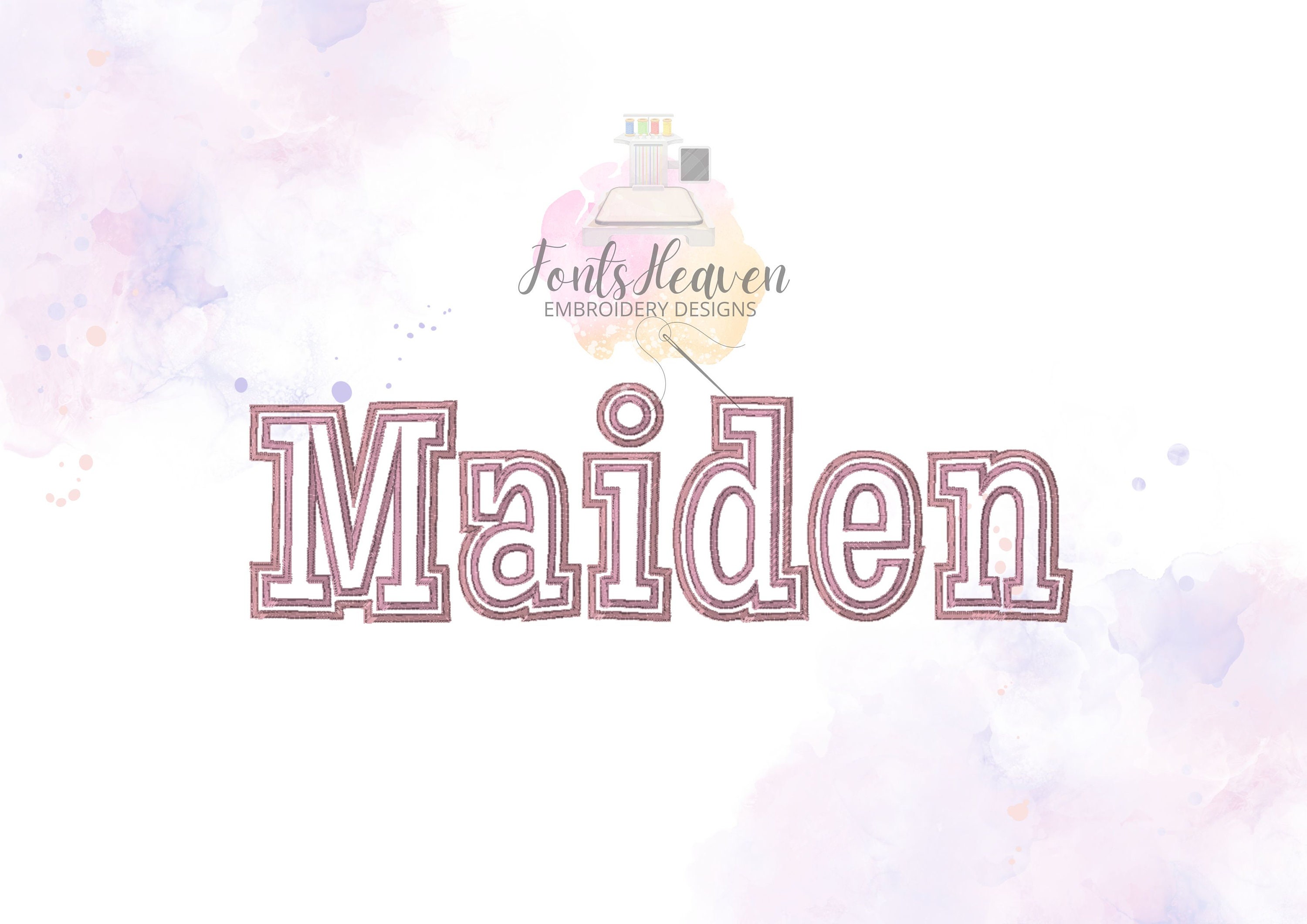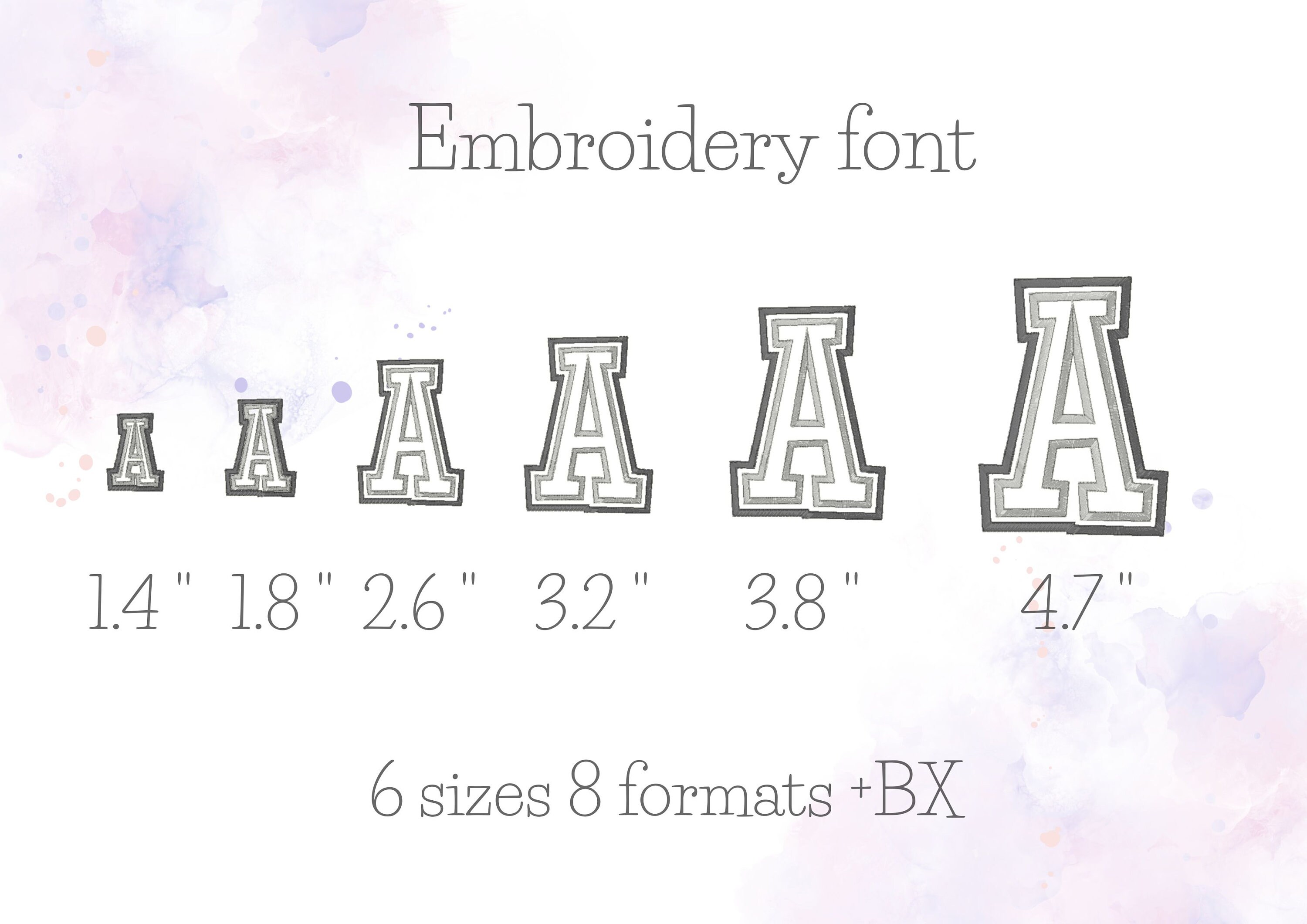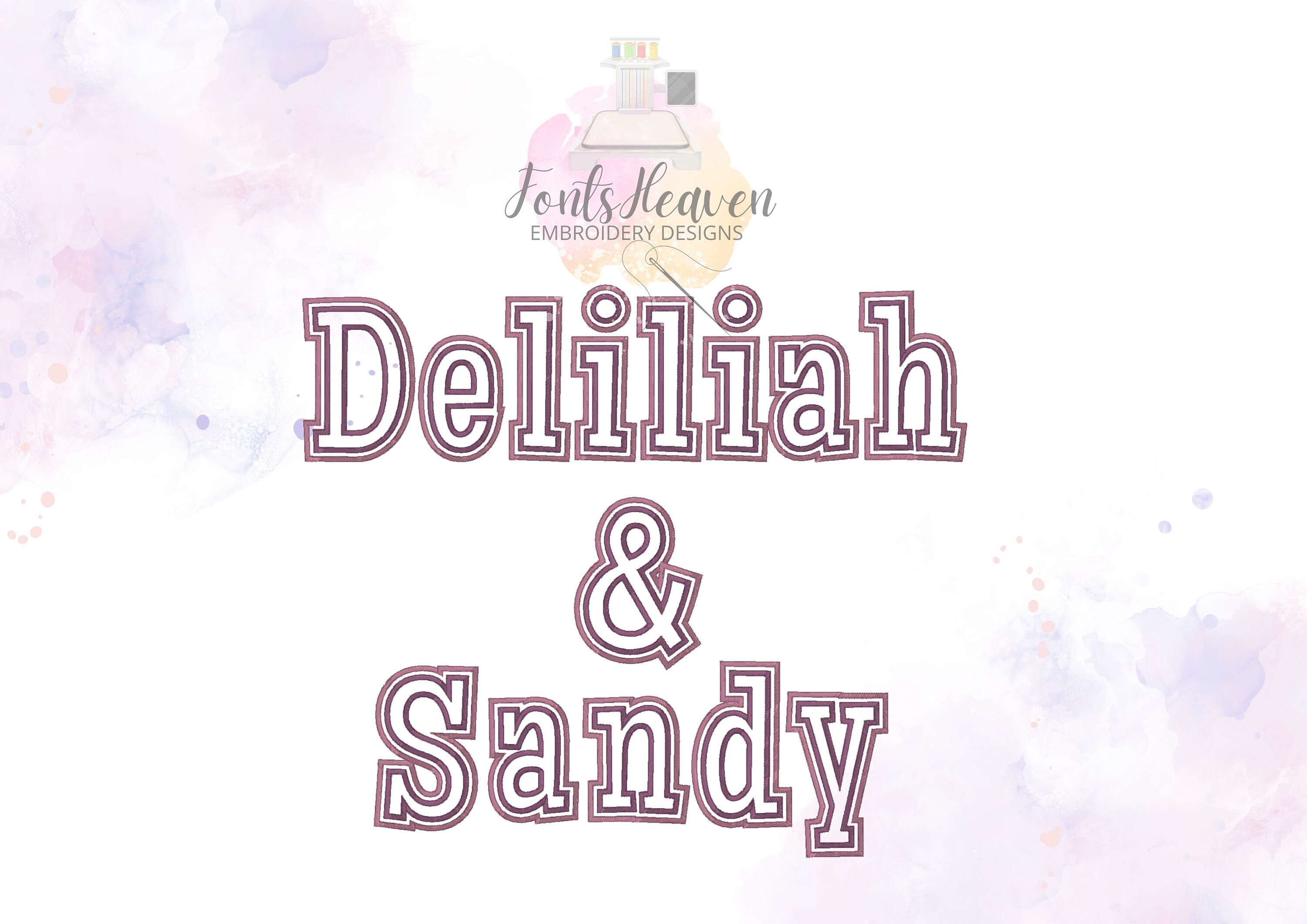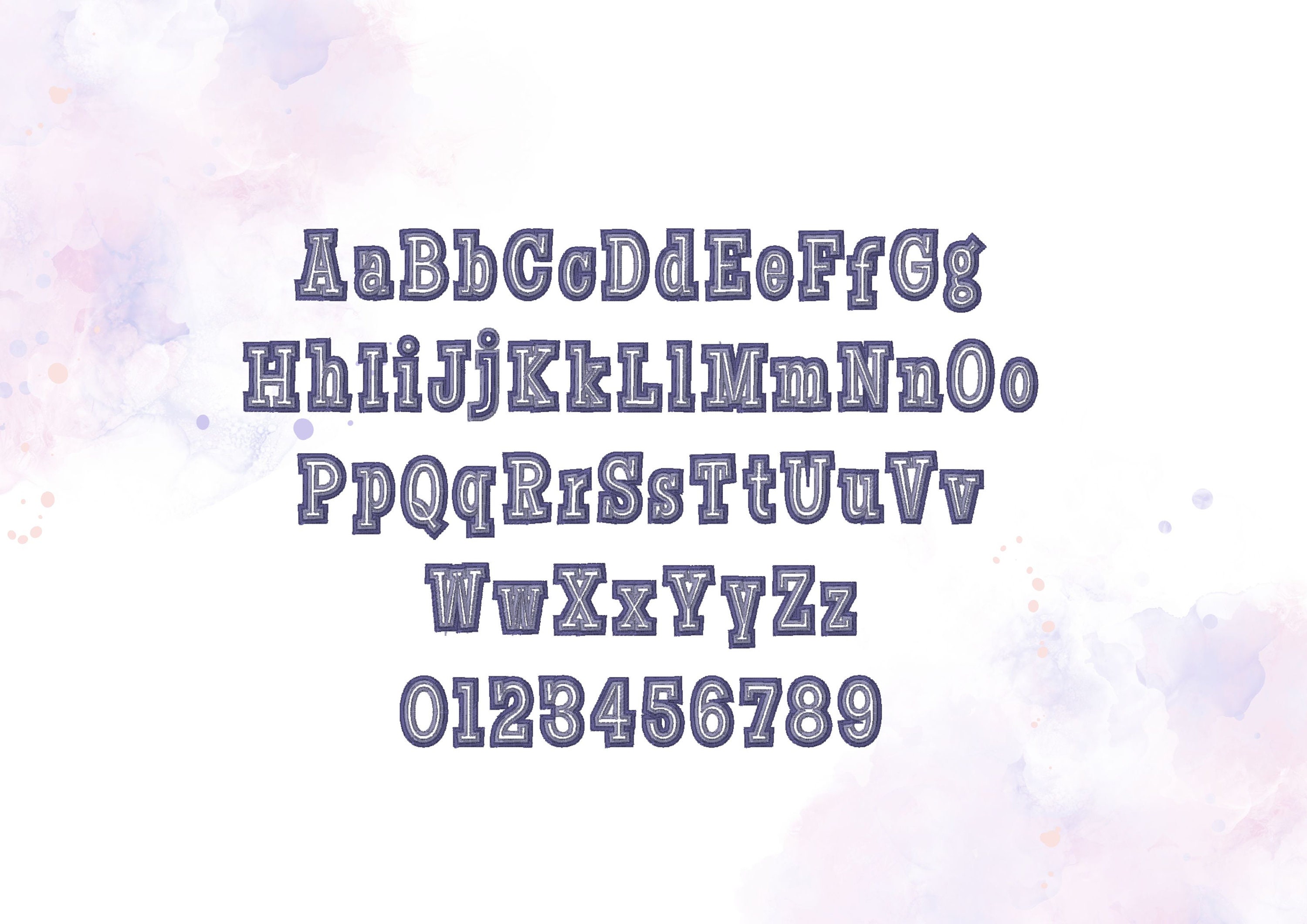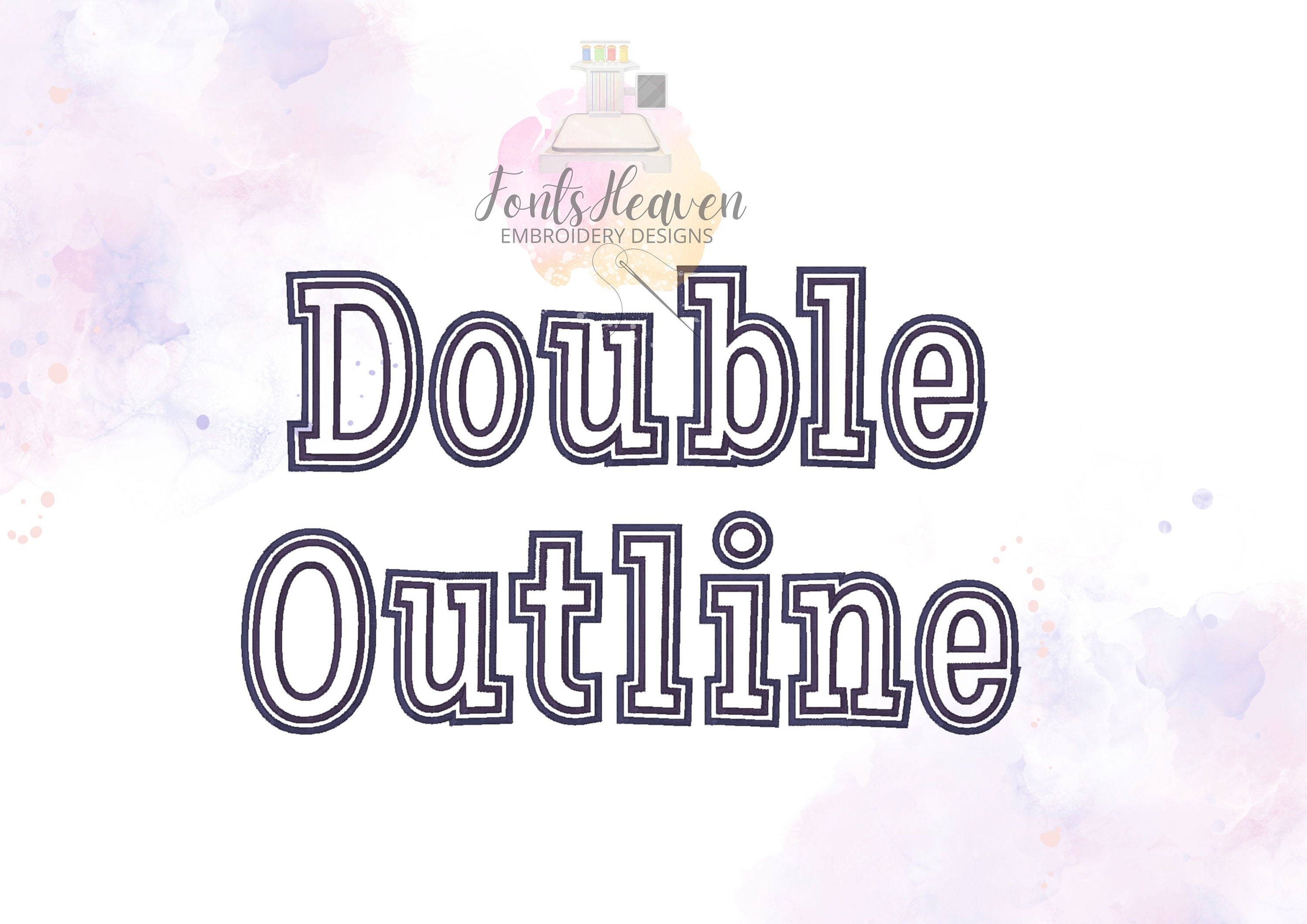
Double outline Font alphabet letters machine embroidery designs in sizes 1.4" thru 4.7" Sport double light stitch outlined monogram name
Only outlines (not an applique).
Uppercase and lowercase letters, and numbers.